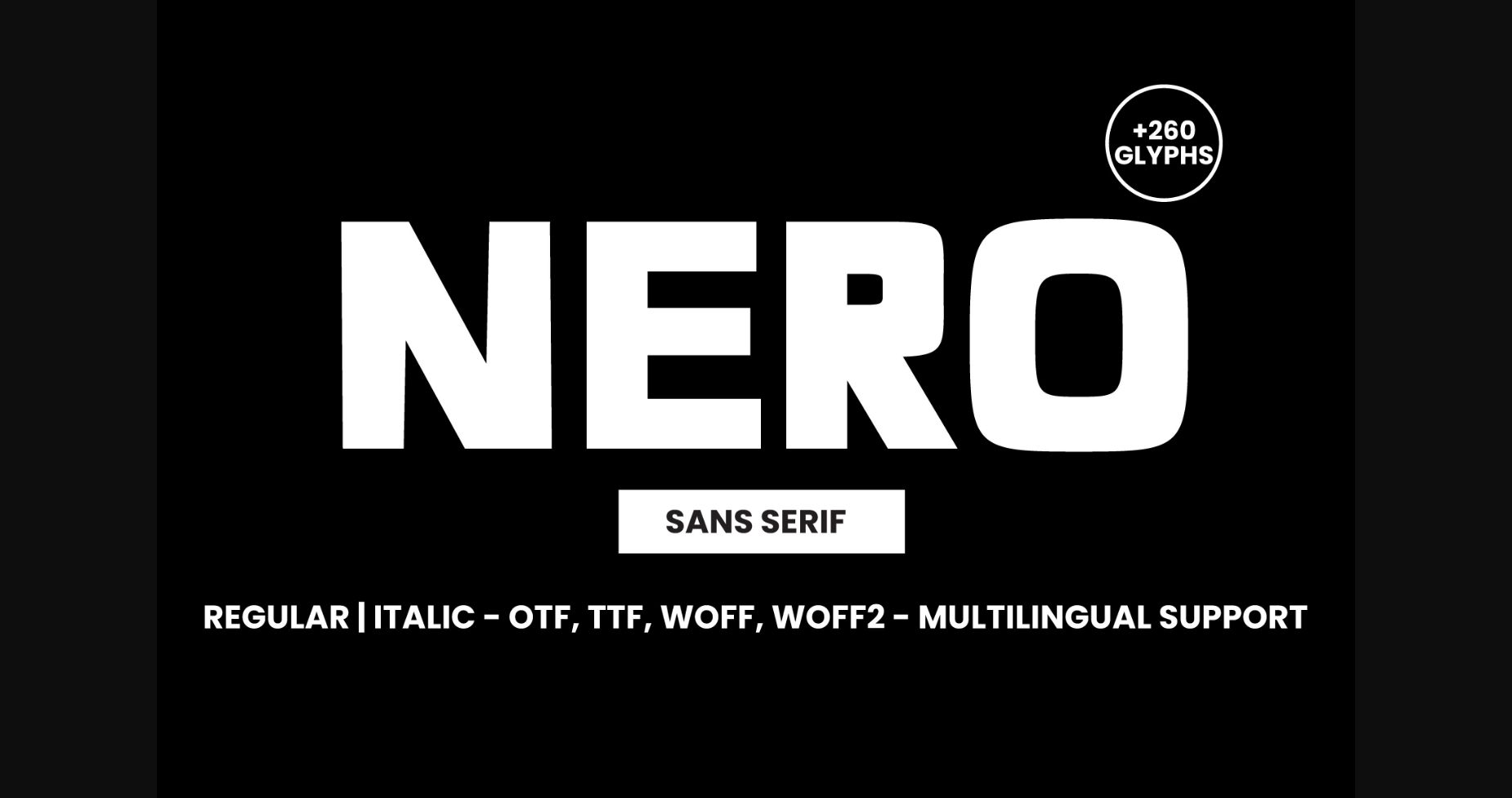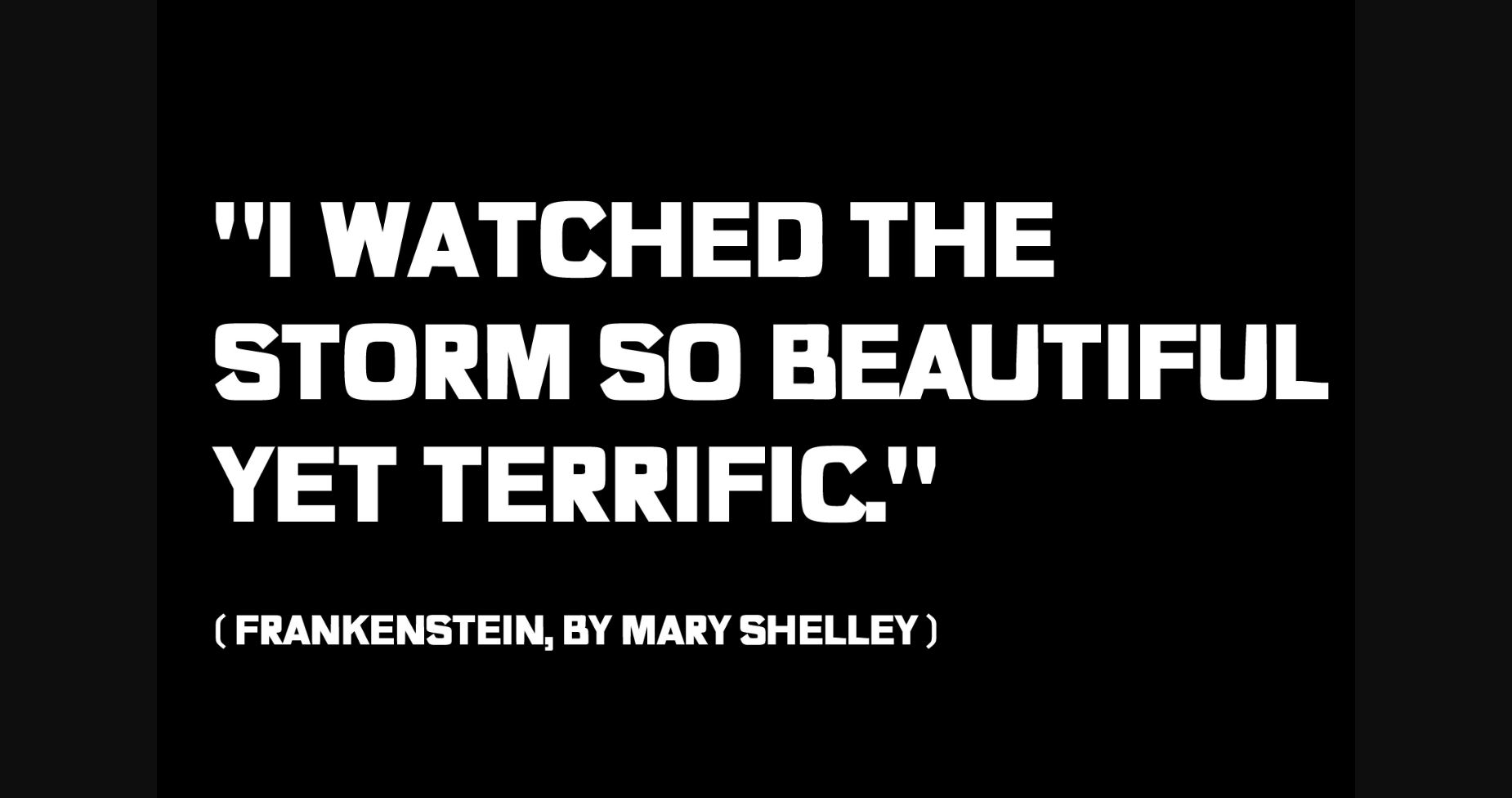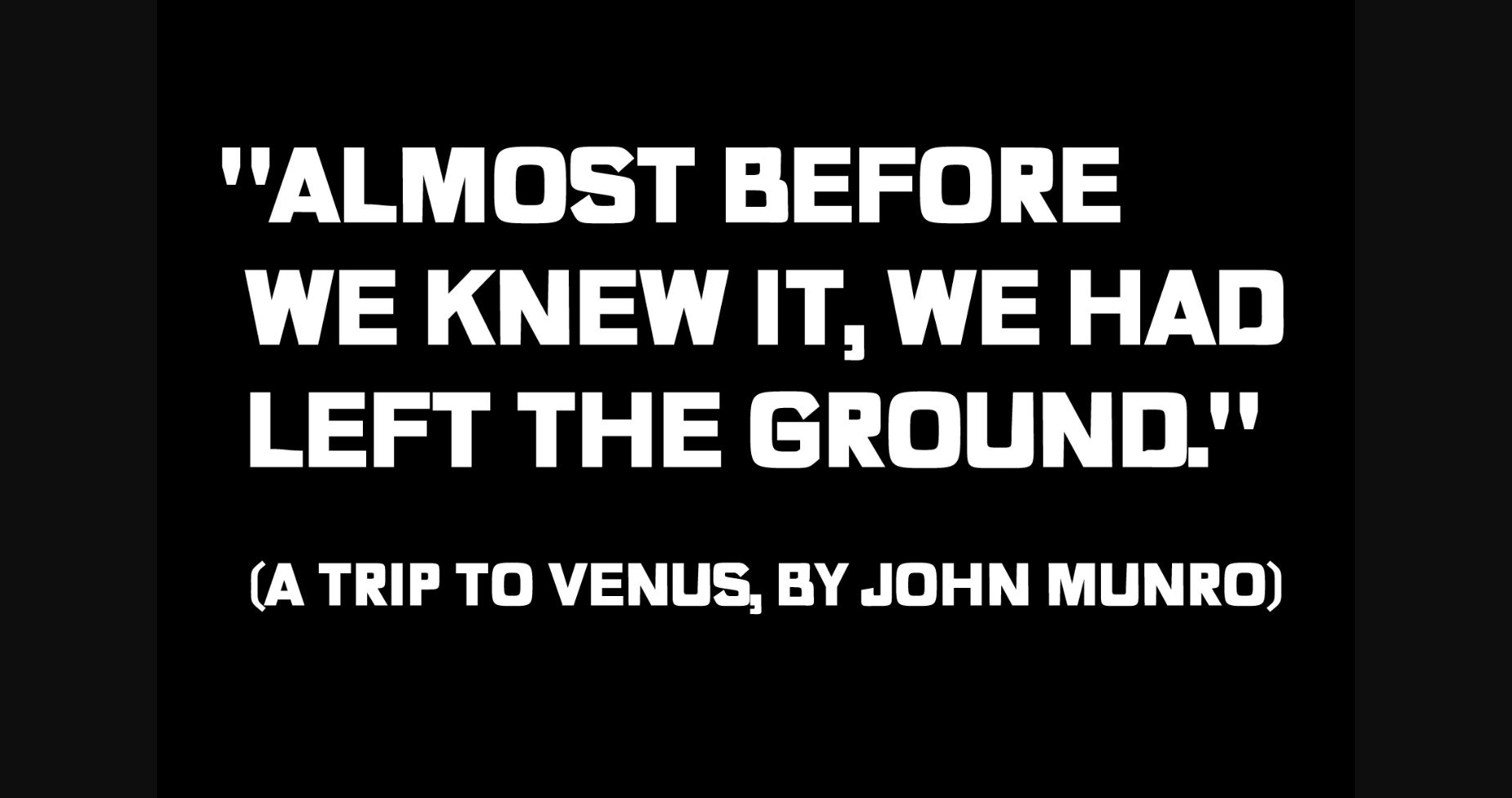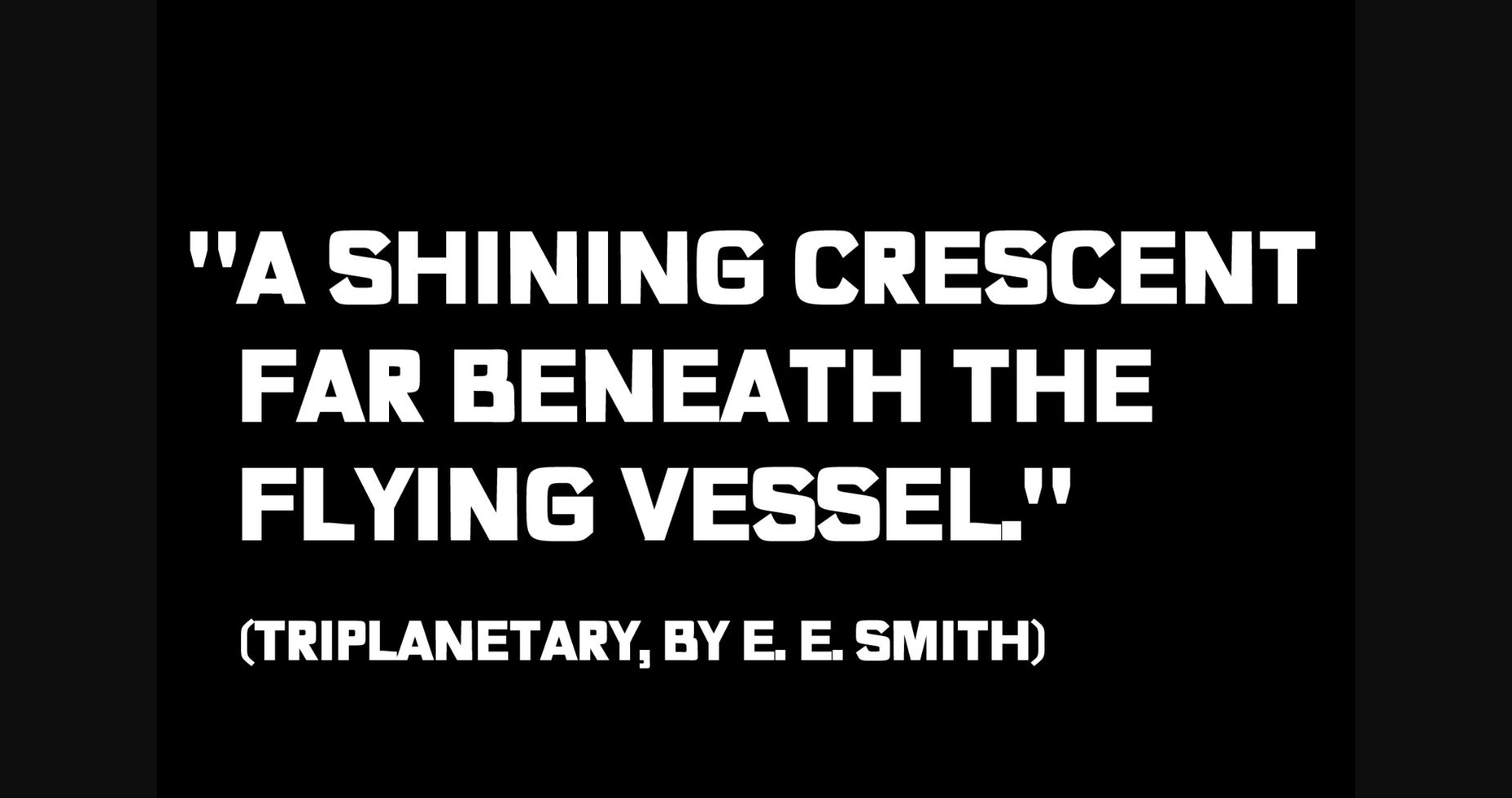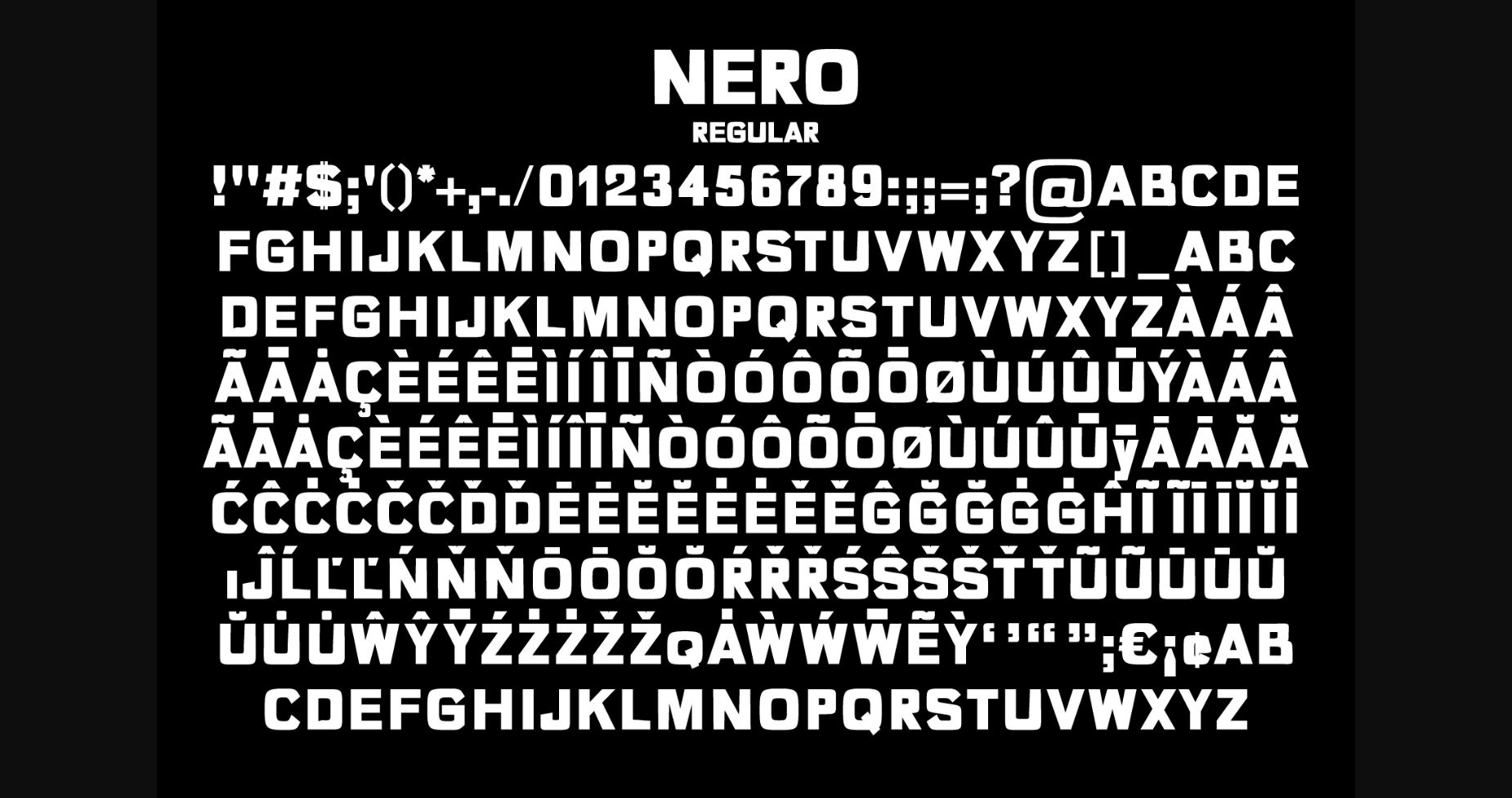
About Nero Font
Nero is a sans serif grotesque, clean, bold, and geometric typeface. It was inspired by Deutsche, swiss design rules. It adapts wonderfully in contexts such as designing labels for perfumes, cosmetics, magazine covers, posters, manifests, flyers, social posts, and fashion. Use it in your creations so you can notice how quickly it becomes one of your favorite fonts.